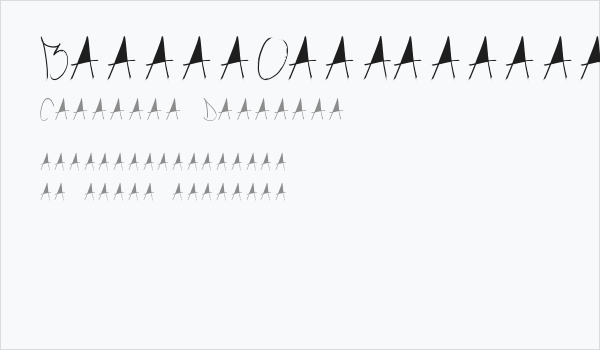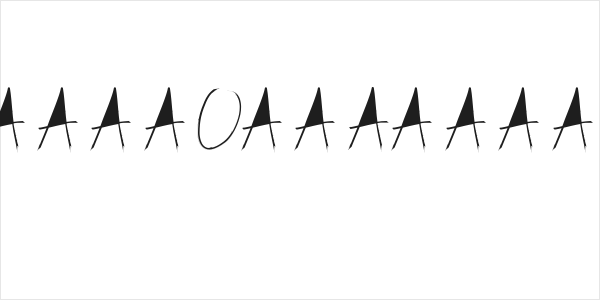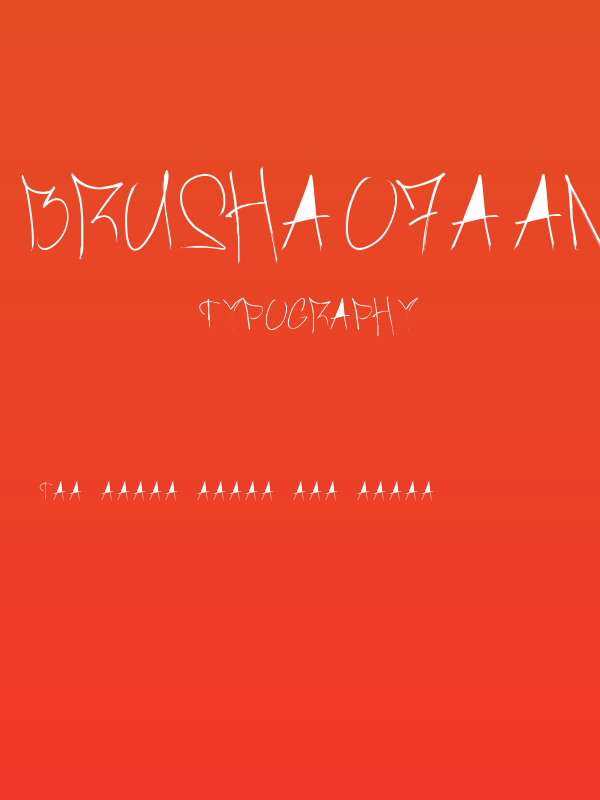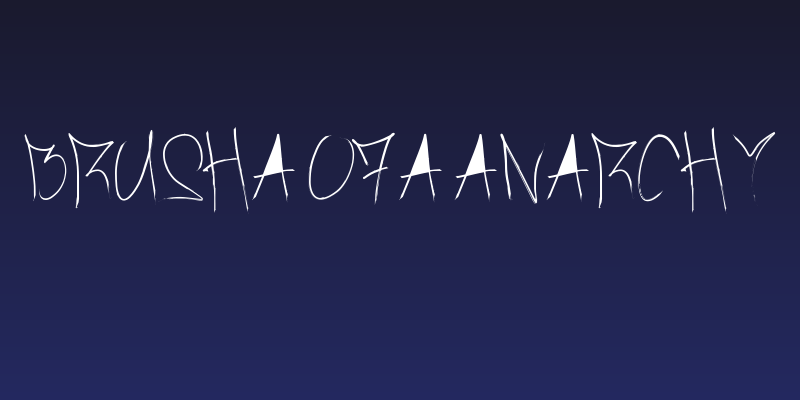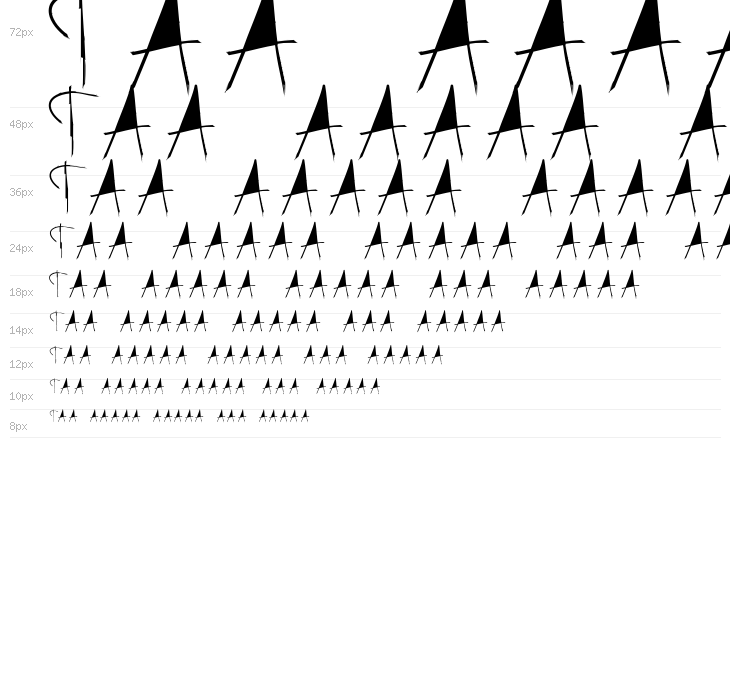
Brush-Of-Anarchy Font
Brush-Of-Anarchy Description
This font exudes a rebellious and edgy vibe, characterized by its sharp, jagged lines and irregular strokes. The uppercase letters are particularly striking, with elongated verticals and dynamic angles that create a sense of movement and energy. The design is reminiscent of graffiti or street art, making it ideal for projects that require a bold, unconventional look. The font's unique style is both artistic and chaotic, capturing attention with its raw and untamed aesthetic.
| Overall Style | Modern, Urban, Edgy |
| Proposed Projects | Ideal for album covers, streetwear branding, poster designs, and any project seeking a rebellious or urban aesthetic. |